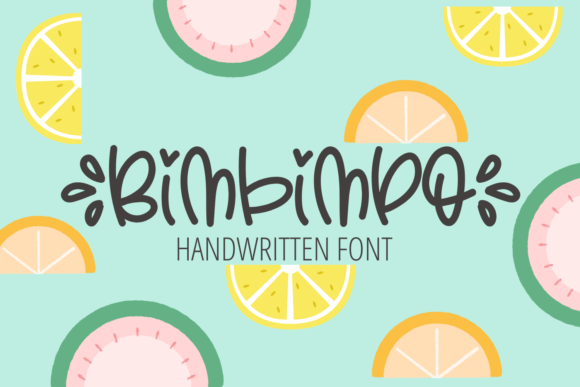
The Perfect Brushstroke: Unlocking the Power of Bimbimpo Font
Have you ever been working on a creative project, pouring your heart and soul into it, and suddenly, the perfect font strikes? For many designers, this moment is pure magic. It’s the spark that sets their vision ablaze, and in this case, it’s the Bimbimpo Font that has captured the hearts of creatives worldwide.
Bimbimpo Font is a delicate, timeless handwritten font that exudes elegance and sophistication. Whether you’re crafting inspirational wall posters or building a brand, this font is the perfect companion to bring your ideas to life. Its versatility and charm make it a valuable asset for designers, allowing them to add a personal touch to their projects.
Bimbimpo Font Key Features
- Unique Characteristics: Bimbimpo Font features a unique blend of modern and traditional elements, with intricate details and ornaments that set it apart from other fonts.
Bimbimpo Font Review
Overall, I’d say the Bimbimpo Font has some nice qualities that make it a decent addition to any design project. Here are some things that work well: ✨
- Unique flair: Bimbimpo has a quirky, playful personality that can add a lot of character to a design.
- Good for titles: The font’s bold, expressive nature makes it well-suited for use in titles and headings.
- Customizable: Bimbimpo comes in a range of weights and styles, giving you a lot of flexibility when it comes to customizing your design.
- Readability issues: At smaller font sizes, Bimbimpo can be a bit hard to read, especially in longer blocks of text.
- Limited versatility: While the font’s unique personality is a strength in some contexts, it can be a weakness in others – for example, it may not be the best choice for formal or professional designs.
Overall, I’d say the Bimbimpo Font is a solid choice for designers who want to add a bit of whimsy to their projects. Just be aware of its limitations and use it judiciously to get the most out of it.
Tips: Use Bimbimpo Font for creative and playful designs, such as social media graphics, flyers, and posters.
Tips: Use Bimbimpo Font for custom logos, branding materials, and typography-based designs.
Tips: Use Bimbimpo Font for presentations, reports, and documents that require a creative and attention-grabbing font.
Bimbimpo Font is ideal for:
- Creative and playful designs
- Custom logos and branding materials
- Typography-based designs